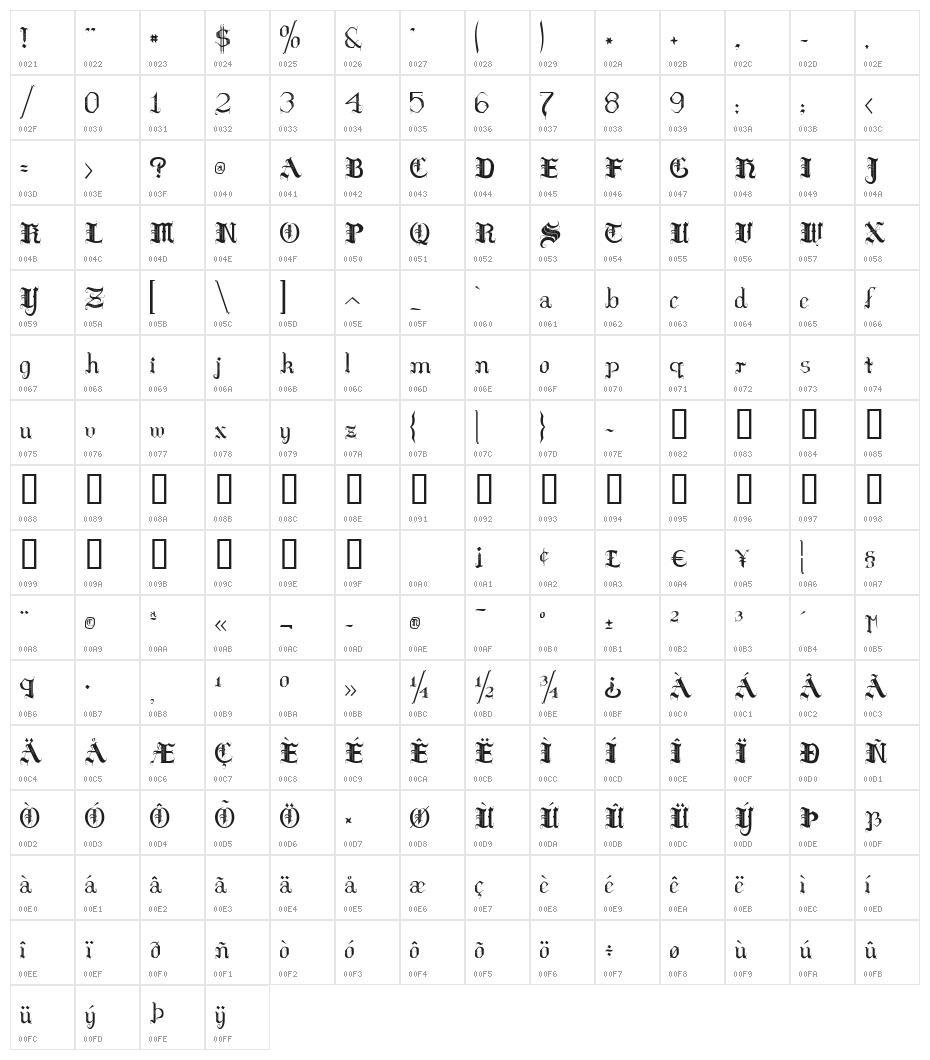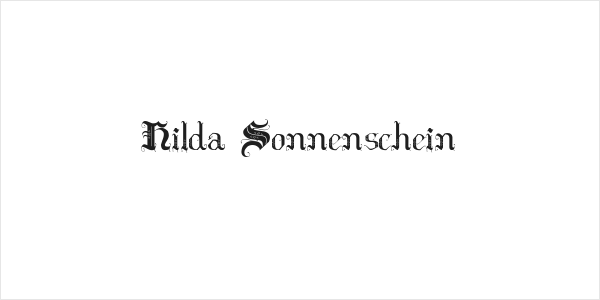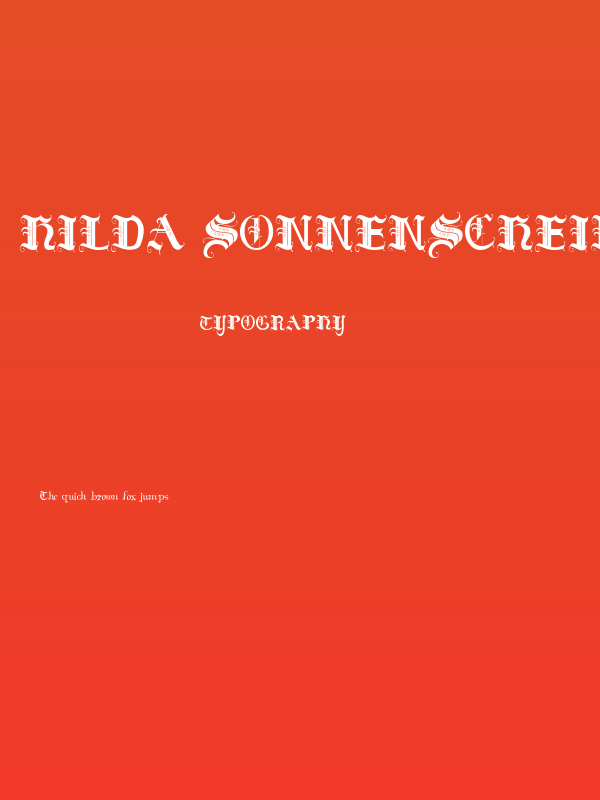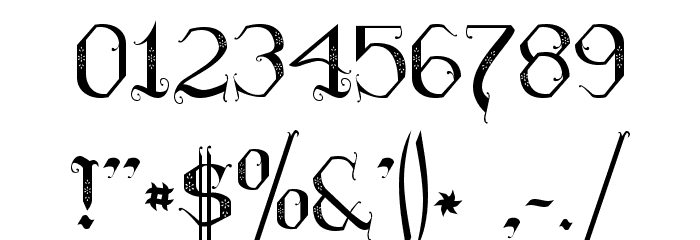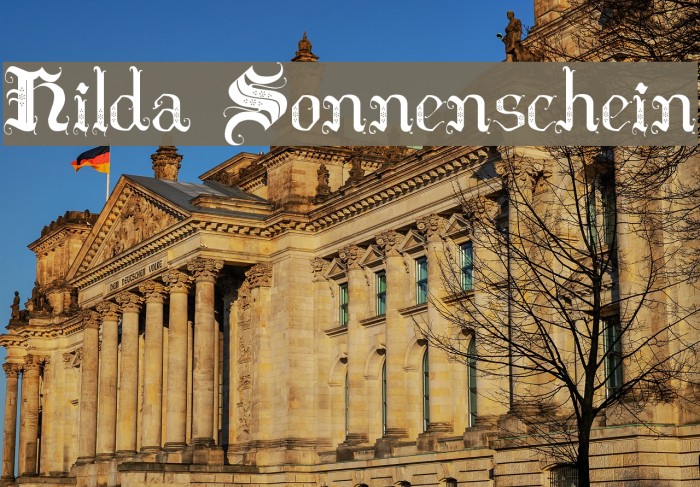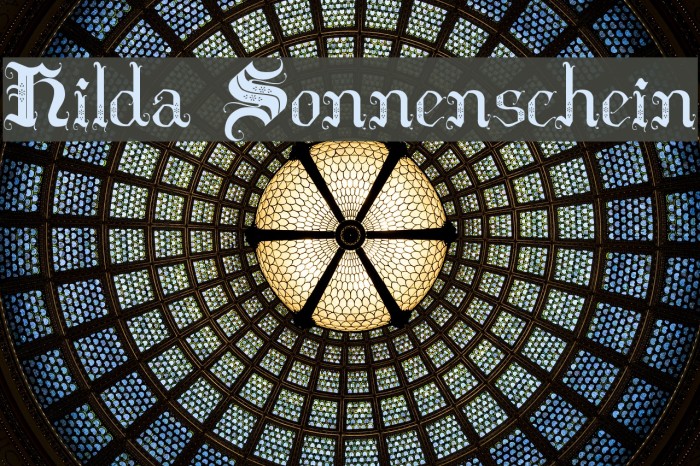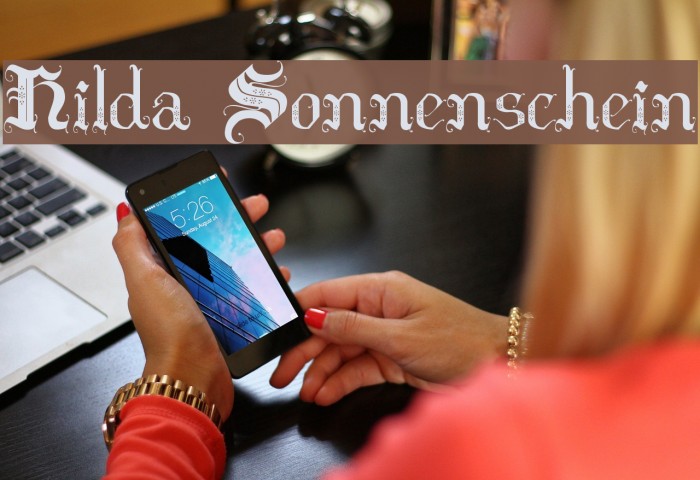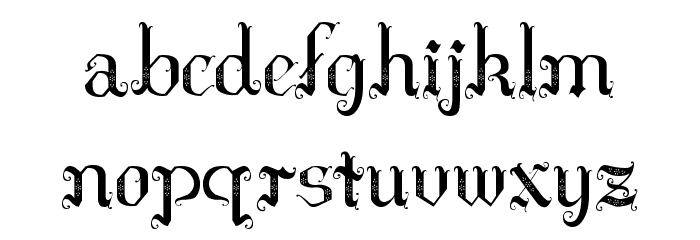
Hilda Sonnenschein Font
Hilda Sonnenschein Description
This font features a highly decorative and intricate design, reminiscent of traditional blackletter styles. The uppercase letters are adorned with elaborate flourishes and sharp, angular strokes, creating a sense of historical elegance. The lowercase letters maintain a similar ornate quality, with unique embellishments that enhance their visual appeal. Numbers and special characters are equally detailed, ensuring a cohesive look across all glyphs. The overall aesthetic is bold and striking, making it ideal for projects that require a touch of vintage sophistication.
| Overall Style | Vintage |
| Use Case | Logos, Headlines, Decorative text |
| Proposed Projects | Ideal for wedding invitations, historical themed events, gothic art, or branding that requires a vintage or medieval touch. |